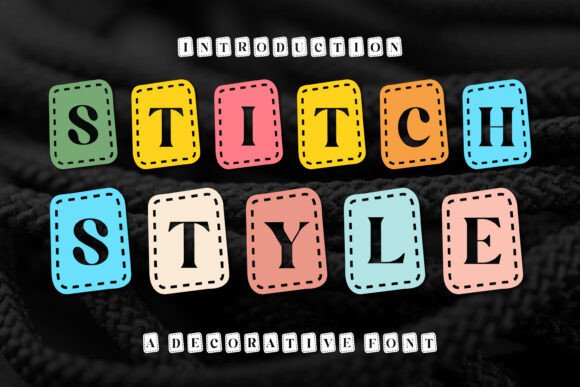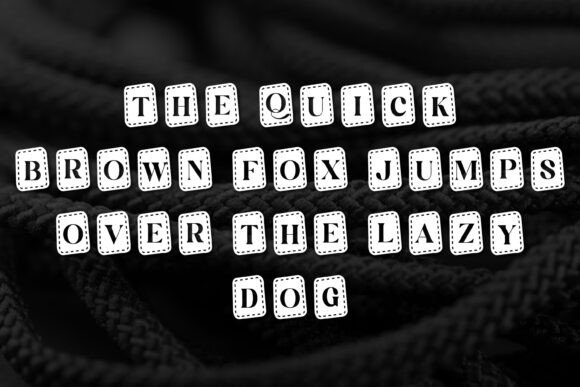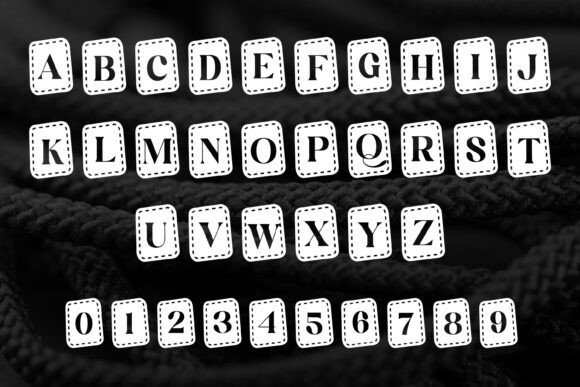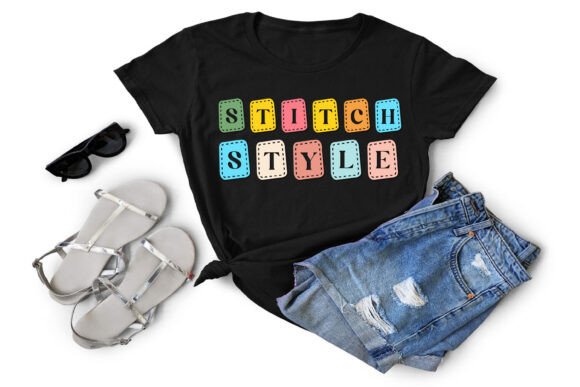
Stitch Style Font
About the Stitch Style Font
Add a touch of class to your work with the Stitch Style Font, a truly exceptional typeface. Introducing a vibrant splash to your creative projects, our color font embodies joy and whimsy that is bound to elevate your design endeavors. An absolute fit for branding initiatives, packaging designs, riveting logotypes, and gripping headlines, it also adds a sprinkle of charm to wedding invitations and similar creatives. Embrace and experience the transformative power of this uplifting font in your designs.
Stitch Style Font Usage Examples
Stitch Style Font Example